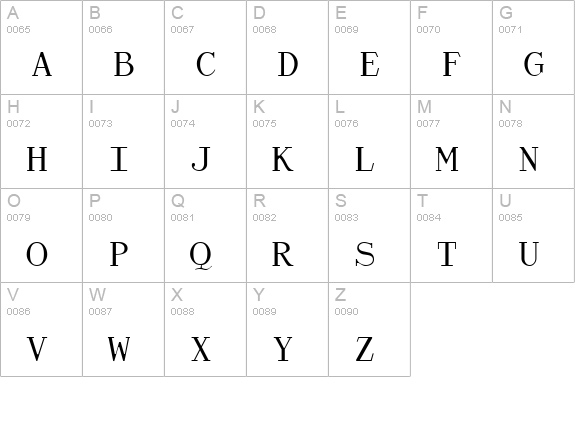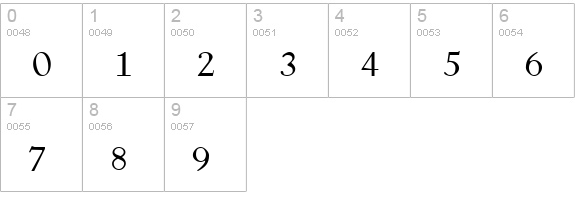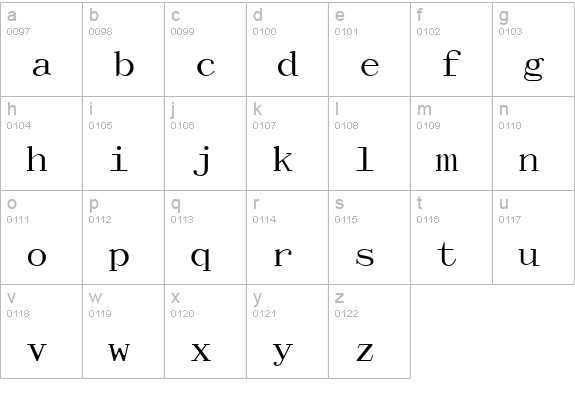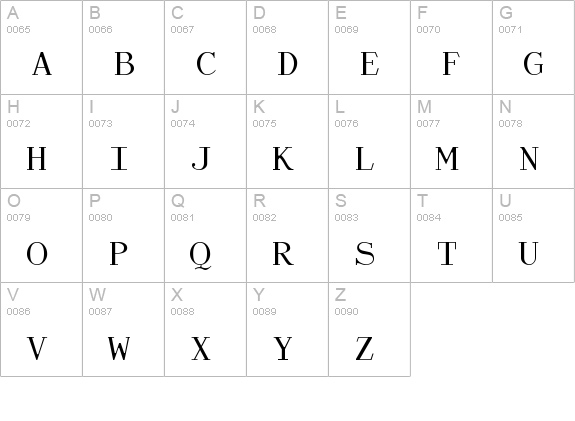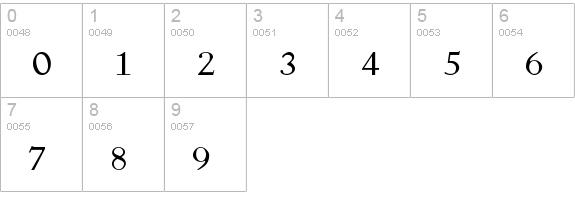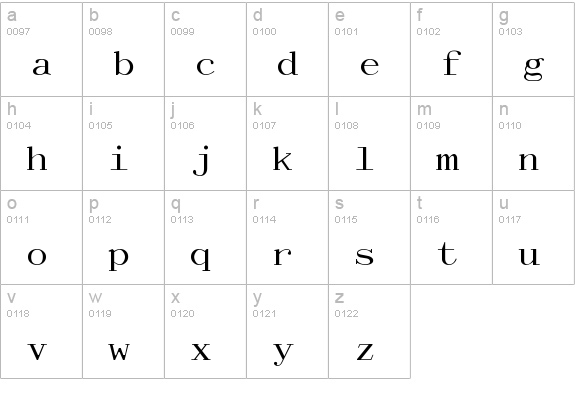
Dactylographe (Unregistered) Font Details
Introducing Dactylographe (Unregistered) font, a truly captivating typeface that exudes elegance and sophistication. This font is the epitome of timeless beauty with its delicate curves and precise letterforms. Dactylographe (Unregistered) font effortlessly combines traditional charm with a modern flair, making it a perfect choice for a wide range of design projects. The unique aspect of Dactylographe (Unregistered) font lies in its versatility. Whether used for a classic wedding invitation, a professional logo, or a stylish editorial layout, this font brings a touch of sophistication to any design. Its clean and legible letters ensure readability, while its subtle details, such as the slight variations in stroke width, add a touch of personality to the overall appearance. What sets Dactylographe (Unregistered) font apart from others is not just its remarkable aesthetics, but also the fact that it is available for free download at FontsMarket.com. Yes, you heard it right – this exquisite font can be yours without spending a dime! Now you can enhance your design projects with a font that not only looks stunning but also fits seamlessly into your budget. Designed with utmost precision and attention to detail, Dactylographe (Unregistered) font is a true testament to the art of typography. Its timeless beauty and versatility make it a must-have for designers, creatives, and enthusiasts alike. Download Dactylographe (Unregistered) font from FontsMarket.com today and unlock a world of endless possibilities for your next design masterpiece.